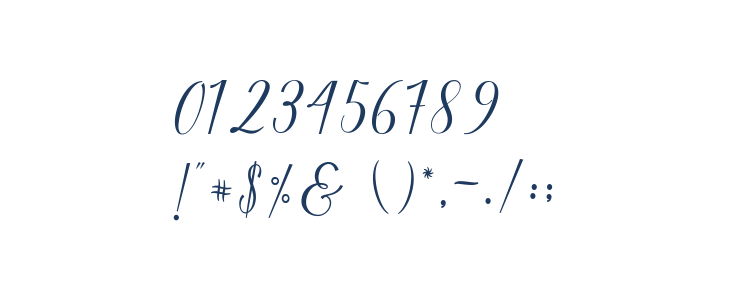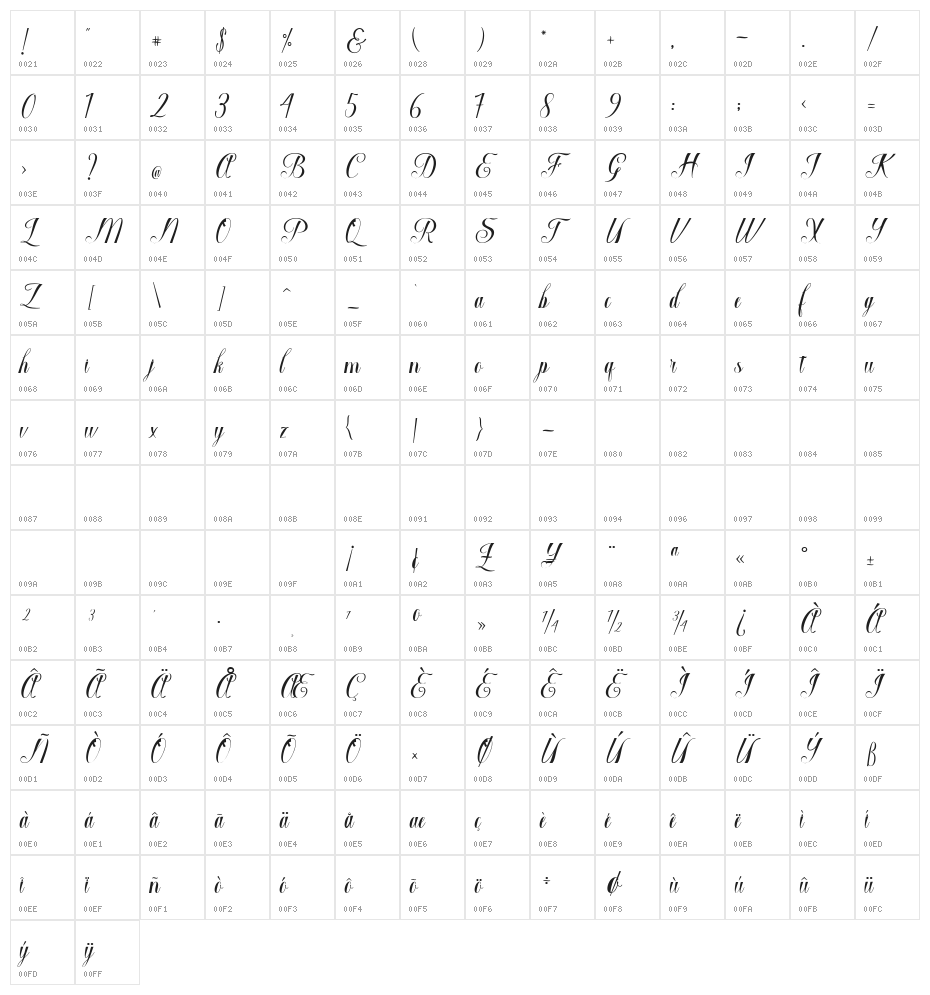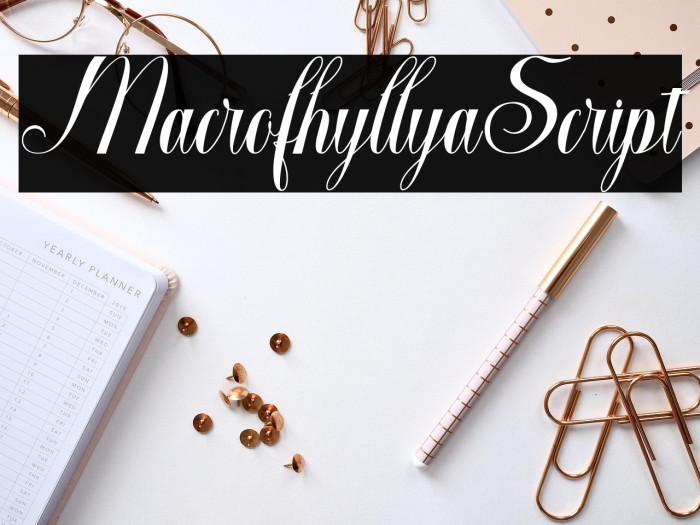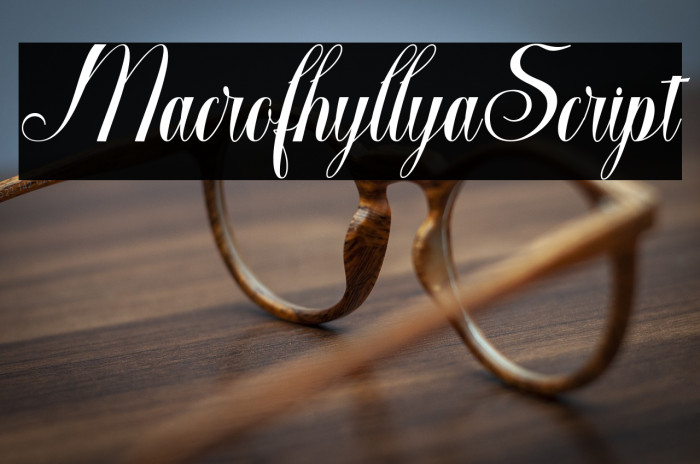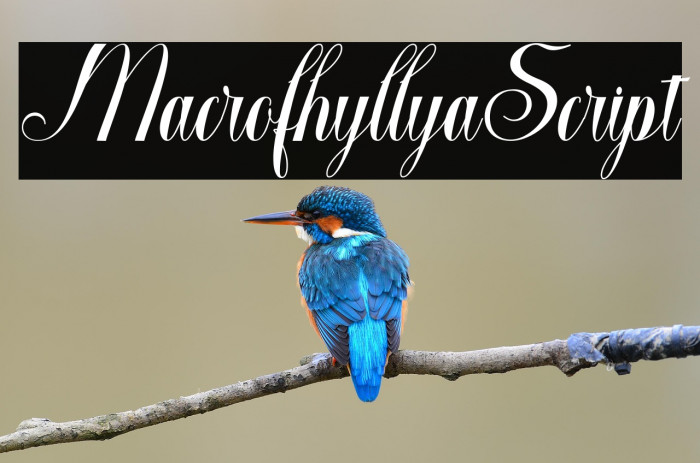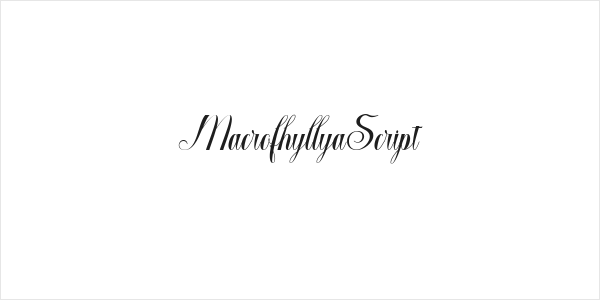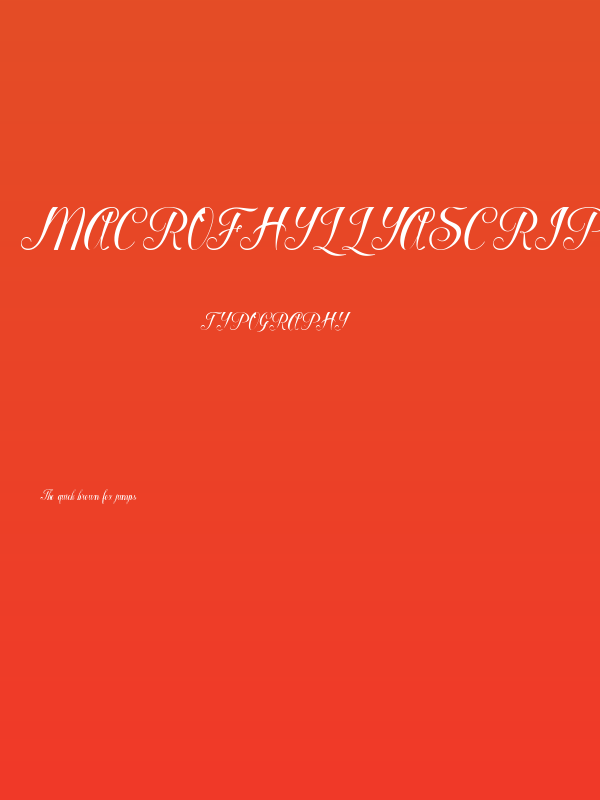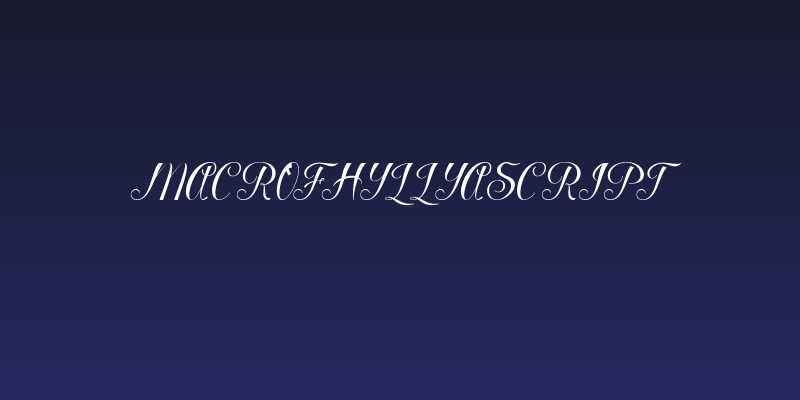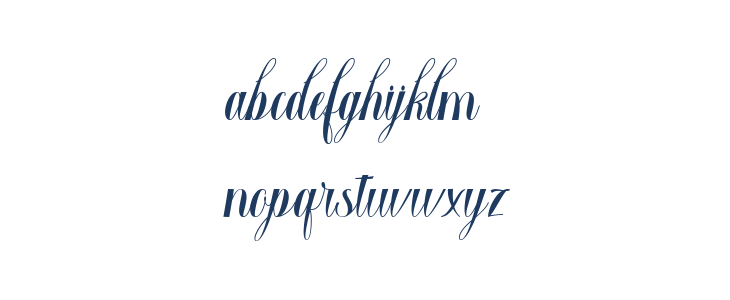
MacrofhyllyaScript Font
MacrofhyllyaScript Description
This elegant script font features flowing, cursive letterforms with a sophisticated and refined appearance. The uppercase letters are characterized by their graceful loops and flourishes, adding a touch of classic elegance. The lowercase letters maintain a consistent flow, with smooth connections between each character, enhancing readability while preserving the decorative style. The numerals are designed with a similar flair, incorporating subtle curves that complement the overall aesthetic. Special characters are thoughtfully crafted to match the font's ornate style, making it suitable for a variety of decorative applications.
| Overall Style | Classic |
| Use Case | Headlines, Logos, Invitations |
| Proposed Projects | Ideal for wedding invitations, greeting cards, elegant branding, and decorative headlines. |